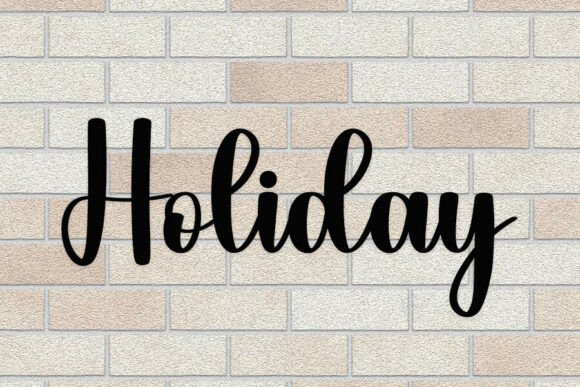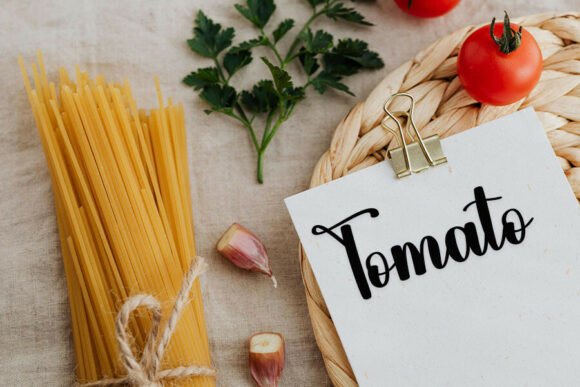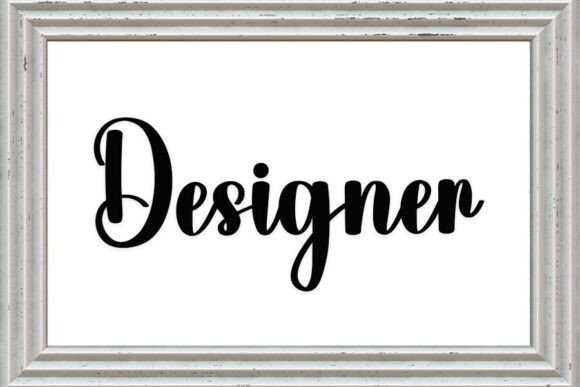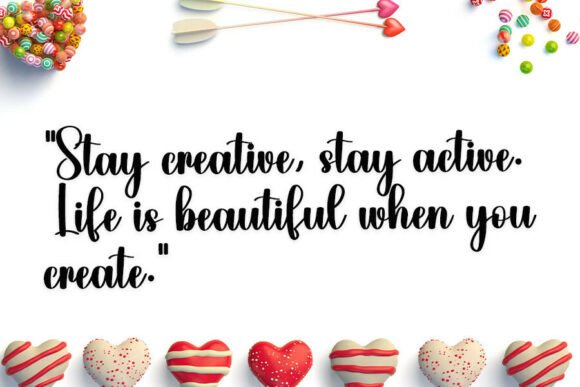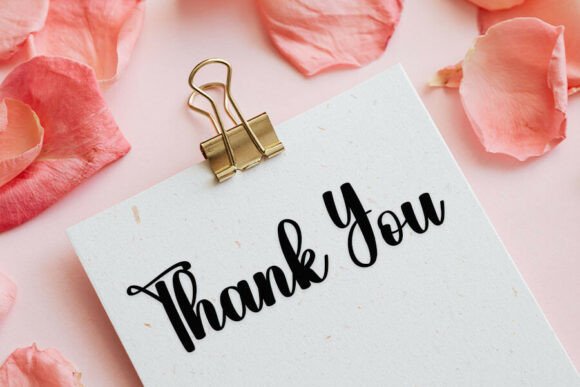
Introduction to Beach Font
Have you ever found yourself strolling along the shore, feeling the warm sand between your toes and the cool ocean breeze in your hair? For many of us, the beach is a place of inspiration, where the rhythmic waves and sun-kissed scenery spark our creativity and ignite our passion for design.
One of the most beautiful aspects of the beach is the delicate, hand-crafted typography that seems to dance across the sand. This is exactly what inspired the creation of the Beach Font, a high-quality, free download font that captures the essence of the seaside in its elegant, cursive script.
Key Features of Beach Font
- High-quality, vector-based font ideal for creative projects, including beach-themed designs, invitations, and other print materials.
- Includes 5 unique and stylish font styles with transparent backgrounds, allowing for easy layering and customization.
- Each font style is designed with a high level of detail, featuring intricate textures and subtle effects that evoke a beachy feel.
- Perfect for designers looking for a unique and eye-catching font to add a touch of the beach to their creative project.
Honest Review: Beach Font
I recently stumbled upon Beach Font, a free download that caught my eye with its elegant and refined aesthetic. As a designer, I’m always on the lookout for high-quality design resources that can elevate my creative projects.
What works well about Beach Font is its versatility. The font is available in various weights and styles, making it suitable for a range of applications, from logo designs to editorial content. The transparent background is also a plus, allowing for seamless integration into any design.
The font’s beach-inspired theme is well-executed, with a calming and soothing feel that’s perfect for projects related to travel, leisure, or wellness.
Pros:
- ✨ High-quality design with a unique beach-inspired theme
- ✨ Versatile font with various weights and styles
- ✨ Transparent background for easy integration
Cons:
- ⚠️ Limited customization options for the font
- ⚠️ Not ideal for projects that require a more dramatic or bold font
Overall, Beach Font is a solid addition to any designer’s toolkit. While it may have some limitations, its unique theme and high-quality design make it a great resource for creative projects.
The Beach Font is ideal for creative projects that require a fun and playful touch, such as summer-themed invitations, beach-inspired social media graphics, and tropical-themed presentations.
For optimal results, use the Beach Font in conjunction with other high-quality design elements, such as colorful graphics and bold typography. Experiment with different font sizes and colors to create a visually appealing design.